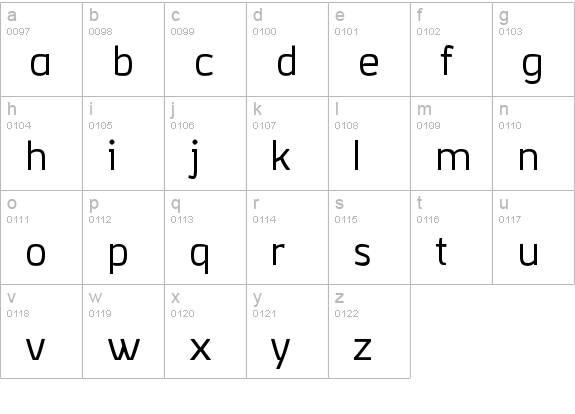
Korpo Sans Regular Alt Font Details
Korpo Sans Regular Alt is the standard, neutral variant in the Korpo typeface family \xE2\x80\x94 well suited to general body text, paragraphs, and standard typographic work.
Korpo Sans Regular Alt font is a versatile and modern typeface that exudes elegance and sophistication. With its clean lines and balanced proportions, this font is perfect for a wide range of design projects, from branding to editorial design. The alternate characters add a unique touch to your text, giving it a distinctive look. The best part about Korpo Sans Regular Alt font is that it is free to download at FontsMarket.com. This means you can easily access this high-quality font without any cost, making it a valuable addition to your font collection. Whether you're a professional designer or a casual hobbyist, Korpo Sans Regular Alt font is a must-have for creating beautiful and impactful designs.